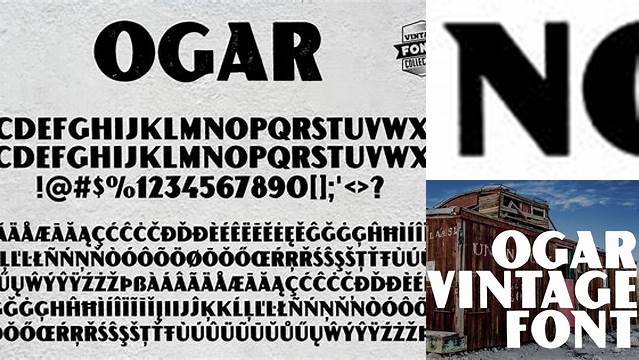
VFC Ogar Font: Free Download & Vintage Font Guide
Hey guys! Are you on the hunt for that perfect vintage font to give your designs a touch of nostalgia and old-school charm? Well, you've landed in the right spot! Today, we're diving deep into the world of vintage fonts, focusing specifically on the VFC Ogar Font, and how you can snag it for your projects without spending a dime. So, buckle up, and let’s get started!
What are Vintage Fonts?
Vintage fonts are typefaces that evoke the styles and aesthetics of past eras, typically ranging from the late 19th century to the mid-20th century. These fonts often feature unique characteristics such as serifs, decorative elements, and distinct letterforms that reflect the printing and design trends of their respective periods. Using vintage fonts can add character, authenticity, and a sense of history to your designs, making them particularly effective for projects that aim to convey a sense of nostalgia, tradition, or timelessness. Whether you’re working on branding for a heritage brand, designing a vintage-themed poster, or creating invitations for a retro event, vintage fonts can provide the perfect visual foundation to capture the desired mood and aesthetic.
Vintage fonts come in various styles, each with its own unique appeal. Serif fonts, with their small decorative strokes at the end of letters, are often associated with classic and formal designs. Script fonts mimic handwriting and add an elegant, personal touch. Sans-serif fonts, which lack serifs, offer a cleaner, more modern take on vintage aesthetics, often used in mid-century modern designs. Decorative fonts, with their elaborate and ornamental details, are perfect for headlines and eye-catching elements. When selecting a vintage font, consider the specific era and style you want to emulate, as well as the overall tone and message of your project. Experiment with different combinations of fonts to create a cohesive and visually appealing design that effectively communicates your intended theme and resonates with your audience.
The rise in popularity of vintage fonts can be attributed to several factors. Firstly, there’s a growing appreciation for historical design and a desire to reconnect with the past in an increasingly digital world. Vintage fonts offer a tangible link to bygone eras, adding a sense of authenticity and craftsmanship to modern designs. Secondly, the versatility of vintage fonts makes them suitable for a wide range of applications, from branding and advertising to web design and print materials. Their ability to evoke specific emotions and create a unique atmosphere makes them a valuable tool for designers looking to stand out and make a lasting impression. Additionally, the availability of high-quality vintage fonts, both free and premium, has made them more accessible to designers of all levels, further fueling their popularity. As a result, vintage fonts continue to be a staple in the design world, offering a timeless and versatile solution for creating visually compelling and emotionally resonant designs.
Diving into VFC Ogar Font
The VFC Ogar Font is a standout in the realm of vintage typefaces, celebrated for its distinctive and timeless appeal. This font captures the essence of classic design, blending readability with a touch of elegance that makes it suitable for a wide array of projects. Whether you're aiming to create a sophisticated logo, design eye-catching posters, or add a vintage flair to your website, the VFC Ogar Font offers the versatility and aesthetic quality needed to elevate your work. Its unique character set and balanced letterforms ensure that your message is conveyed with clarity and style, making it a favorite among designers who seek to infuse their creations with a sense of history and refinement.
What sets the VFC Ogar Font apart is its attention to detail and the subtle nuances that pay homage to vintage typography. The serifs are carefully crafted to provide a sense of structure and tradition, while the overall design maintains a modern sensibility. This balance allows the font to be both nostalgic and contemporary, making it adaptable to various design contexts. The VFC Ogar Font also boasts excellent legibility, ensuring that it remains readable even at smaller sizes, which is crucial for body text and other detailed applications. Furthermore, its extensive character set includes a variety of ligatures, alternate characters, and stylistic variations, giving designers the flexibility to create unique and personalized compositions.
When considering the VFC Ogar Font for your projects, it's essential to understand its strengths and how it can best be utilized. This font excels in creating headlines and titles that demand attention, as well as adding a touch of sophistication to branding materials. Its elegance makes it particularly well-suited for projects that require a sense of luxury and exclusivity, such as invitations, packaging, and high-end marketing collateral. Additionally, the VFC Ogar Font can be effectively used in editorial design, where its readability and classic aesthetic can enhance the overall reading experience. By carefully considering the font's characteristics and how they align with your design goals, you can unlock its full potential and create visually stunning and impactful designs that resonate with your audience.
Why Choose VFC Ogar for Your Projects?
Choosing the right font for your project is crucial, and VFC Ogar brings a unique blend of vintage charm and modern usability that makes it a standout choice. This font isn't just another typeface; it’s a carefully crafted design element that can elevate your work, giving it a distinct personality and a touch of timeless elegance. Whether you’re working on branding, editorial design, or web layouts, VFC Ogar offers the versatility and aesthetic appeal to make your project truly shine. Its balanced letterforms and subtle serifs create a visual harmony that is both pleasing to the eye and highly readable, ensuring that your message is conveyed with clarity and style.
One of the key reasons to choose VFC Ogar is its ability to evoke a sense of nostalgia and authenticity. In a world saturated with generic, mass-produced designs, VFC Ogar stands out by offering a connection to the past. This can be particularly valuable for projects that aim to convey a sense of history, tradition, or craftsmanship. For instance, if you’re designing a logo for a heritage brand, VFC Ogar can help communicate the brand’s long-standing values and commitment to quality. Similarly, if you’re creating invitations for a vintage-themed event, this font can set the perfect tone, transporting your audience back in time. By using VFC Ogar, you’re not just choosing a font; you’re choosing to tell a story and create an emotional connection with your audience.
Moreover, the versatility of VFC Ogar makes it suitable for a wide range of applications. Its clean lines and balanced proportions ensure that it remains legible even at smaller sizes, making it ideal for body text and other detailed applications. At the same time, its distinctive character and elegant serifs make it perfect for headlines and titles that demand attention. Whether you’re designing a website, creating print materials, or working on a digital campaign, VFC Ogar can adapt to your needs and enhance the overall visual appeal of your project. Its extensive character set, including ligatures and alternate characters, gives you the flexibility to create unique and personalized compositions, ensuring that your design stands out from the crowd. In summary, choosing VFC Ogar is an investment in quality, versatility, and timeless elegance that can transform your projects and leave a lasting impression on your audience.